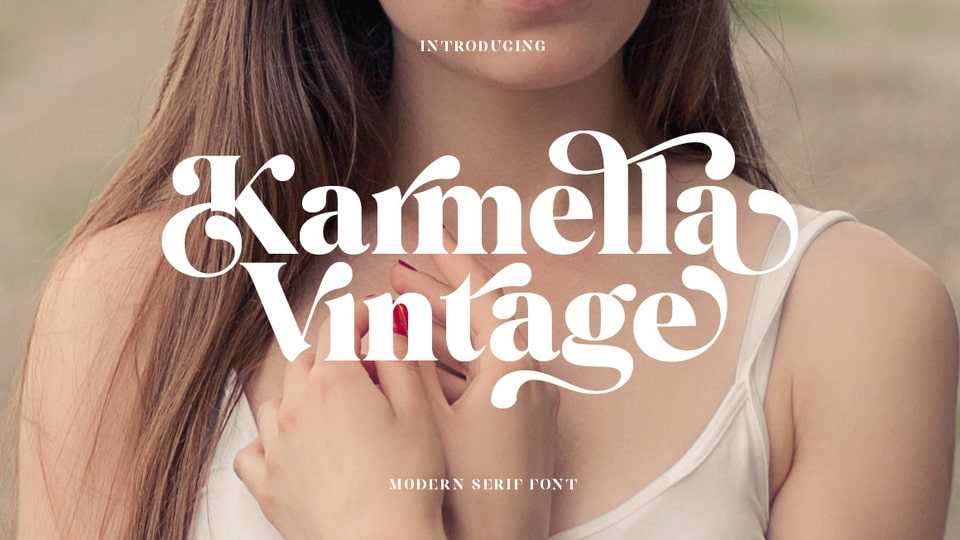
Download Karmella font, an elegant and classy serif typeface featuring lots of curvy letters. Refined and cheerful, Karmella font will be ideal for writing wedding invitations, cards, or any other design that may need a romantic, personalized touch.